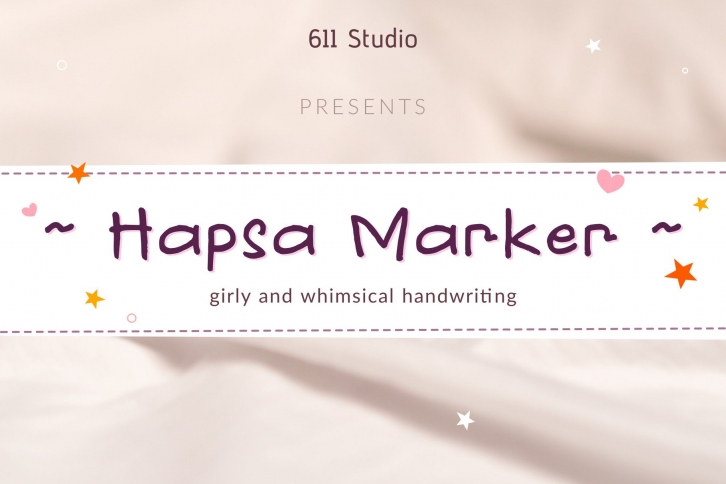
611 Studio proudly presents Hapsa Marker,
cute handwriting typeface with girly and whimsical look.
Perfect match for girly design, children or teenage storybook.